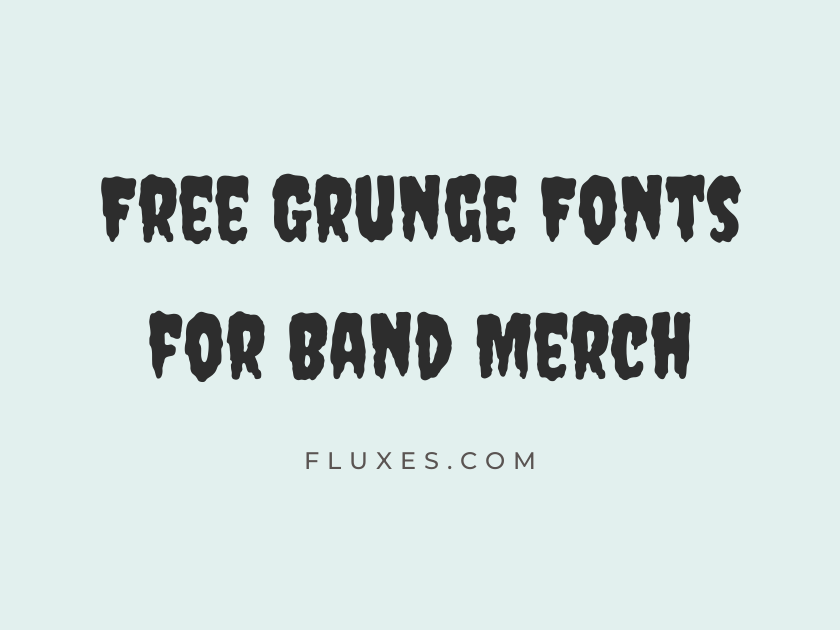
63 Best Free Grunge Fonts for Band Merch
Grunge fonts do a lot of heavy lifting for a band’s visual identity. They carry the sweat of a basement show, the ink-stained edge of a photocopied flyer, and the scratched-up finish of a vinyl sleeve, all without a single photo. If you are building merch, show posters, or album art and want that raw, lived-in look without paying for it, Google Fonts has a genuinely deep bench of distressed, hand-scrawled, stenciled, and metal-adjacent typefaces ready to drop into a design.
The best free grunge fonts for band merch tend to fall into a few families: horror-tinged display faces for metal and punk, blackletter for anything doom or black-metal adjacent, marker and sketch styles for DIY flyer energy, chunky poster faces for arena-scale impact, and a newer wave of texture-built fonts that look spray-painted, scorched, or soaked straight out of the glyph.
1. Creepster
Creepster is the default horror-drip face for a reason: its melting, uneven baseline reads instantly as unhinged and theatrical. It suits horror-punk, death metal, and Halloween tour merch better than almost anything else free, though it gets muddy fast below 20px, so save it for headline type only.
2. Nosifer
Dripping, jagged, and genuinely menacing, Nosifer looks like it was carved with a rusty blade. It is a natural fit for extreme metal album covers and tour tees, but it is heavy enough that it should almost never carry more than a band name or single word.
3. Eater
Eater leans gothic-horror with jagged serifs that feel scratched into stone. It pairs well with a plain sans for tour dates underneath, letting the display face do the shouting.
4. Butcherman
Butcherman brings a brush-inked horror-comic energy, thick and slightly ragged at the edges like it was painted on a basement wall in one take. It works especially well for grindcore, horrorcore, and splatter-themed merch drops where a little cartoonish menace is the goal.
5. Vampiro One
Rounded but sinister, Vampiro One softens the horror-font formula just enough to stay legible at small sizes on a shirt tag or sticker.
6. Metal Mania
True to its name, Metal Mania is built from jagged, hand-inked strokes that channel eighties thrash logos directly. It is a shortcut to that classic cassette-tape metal look without touching a paid logo generator.
7. Pirata One
Pirata One mixes blackletter bones with a rougher, more casual hand than most gothic faces, so it feels metal without tipping into full medieval cosplay. It reads well at poster scale and holds up surprisingly well in all caps on a chest print.
8. UnifrakturMaguntia
This is proper German blackletter, dense and ornamental, the kind of face that instantly signals black metal, doom, or gothic rock lineage. It demands generous spacing and a dark background to really sing, and it is far too intricate for body copy, but as a band name lockup it has real gravity.
9. UnifrakturCook
Heavier and blunter than UnifrakturMaguntia, UnifrakturCook works well when a logo needs to feel etched rather than delicate. Reserve it for short band names; the strokes get visually noisy in longer lines.
10. Grenze Gotisch
Grenze Gotisch is a variable blackletter, so a single family gives you everything from a fine woodcut feel to a near-black, ink-heavy weight suited to logos. That range makes it one of the more flexible gothic options here, useful across a whole merch line rather than just one shirt.
11. Eagle Lake
Eagle Lake is calligraphic rather than aggressive, closer to a medieval manuscript than a mosh pit. It suits doom, folk-metal, or gothic-Americana acts that want atmosphere over aggression.
12. Rye
Rye pulls from old western wanted posters, all slab serifs and slight wear at the joints. It is an easy way to give a band a saloon-poster, outlaw-country grit without designing custom lettering.
13. Sancreek
Sancreek carries that same frontier-stamp feel as Rye but rougher and more condensed, closer to a branding iron than a printed flyer. Great for stoner rock, desert rock, or anything leaning on Americana grit.
14. Smokum
Smokum is loose, wavy, and a little hazy, as if the letters themselves are drifting. It fits stoner or psych-rock merch nicely, though its irregular rhythm means it needs room to breathe.
Between the horror scripts, the blackletter options, the stencils, and the newer texture-built Rubik variants, there is enough range here to give almost any band, from doom to pop-punk to noise rock, a distinct, authentically worn identity without spending a cent on type.